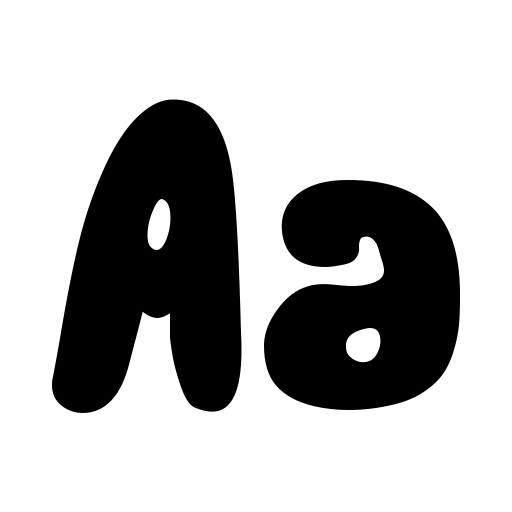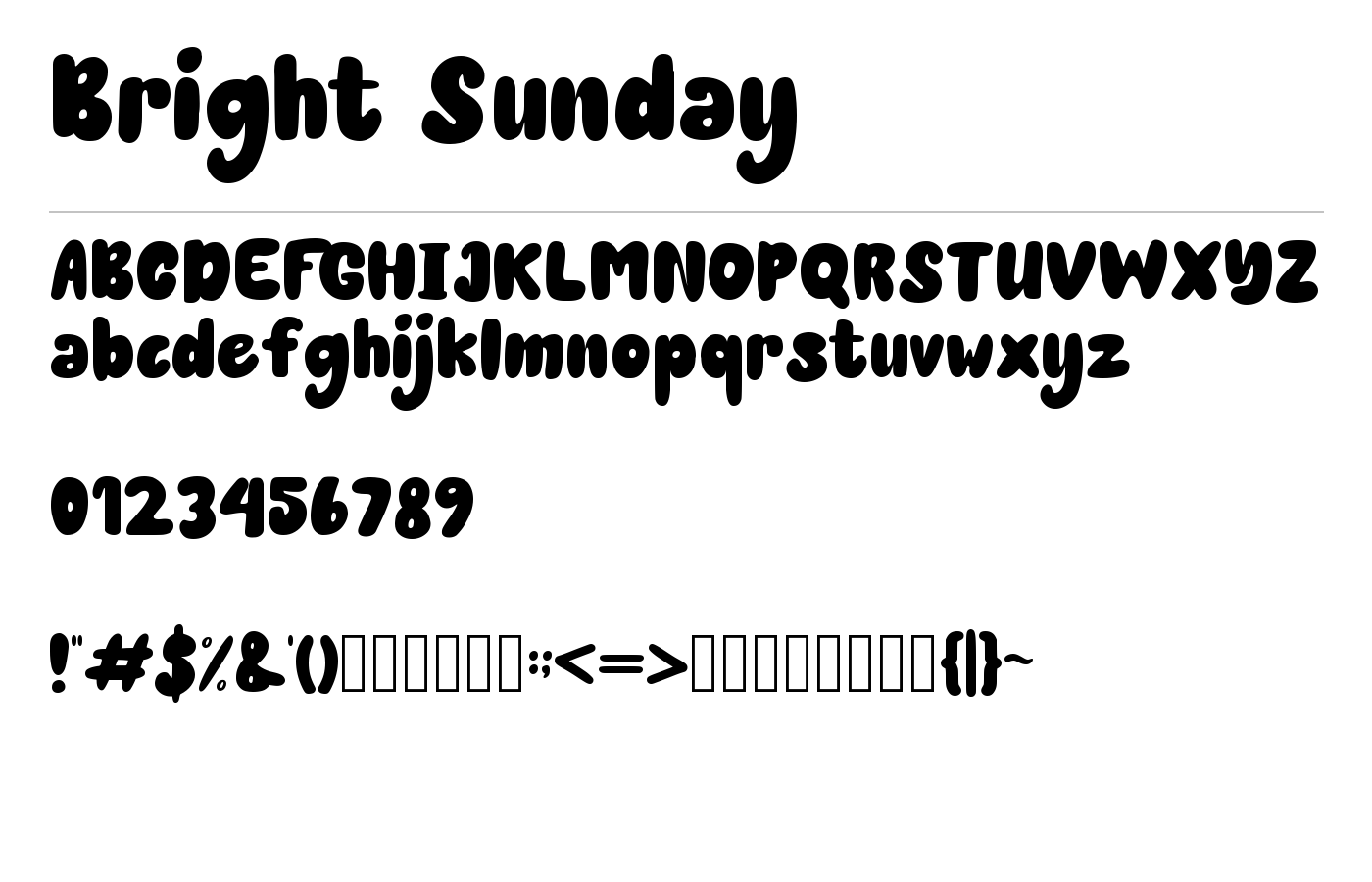
Bright Sunday is a bold, rounded sans serif font with a playful and friendly character, featuring thick strokes and a soft, approachable feel. Its heavy weight and bubbly letterforms make it ideal for fun, informal designs like children's books, casual branding, and eye-catching headlines that seek to convey warmth and cheerfulness.
Bright Sunday Font
About Bright Sunday Font